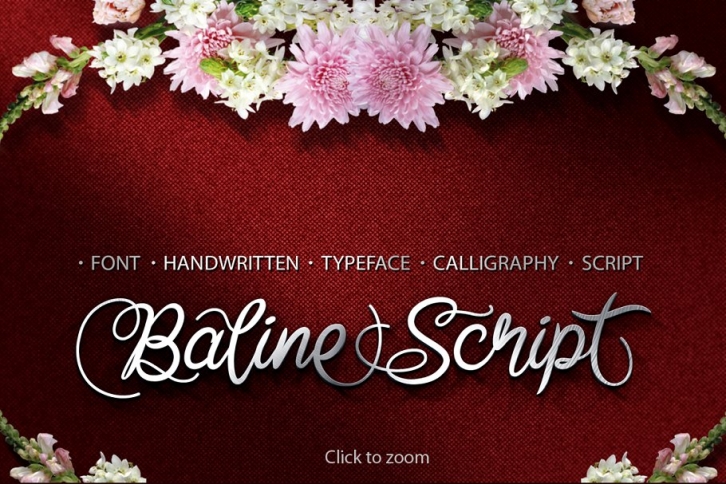
Baline script font is italic spontaneous decoration typeface clean looks handwiritten with artistic brush. This font have many glyphs alternative variation. 3 capital variation letters and 5 small variation letters.